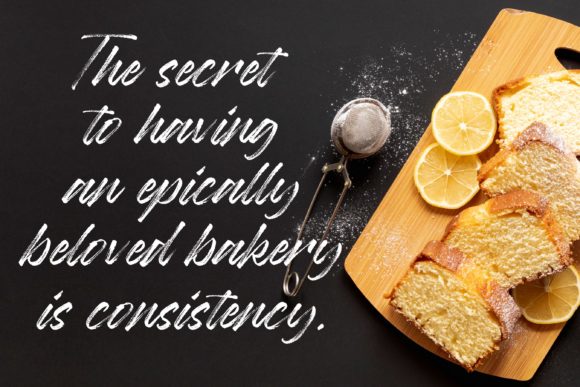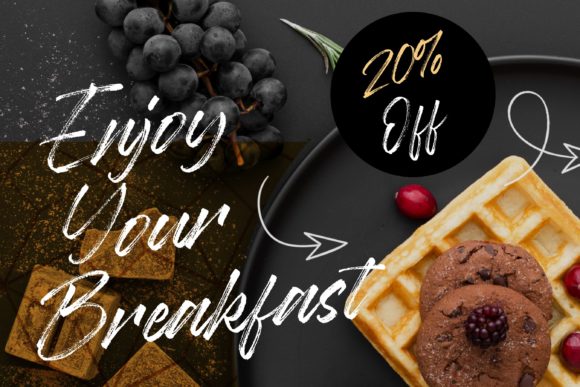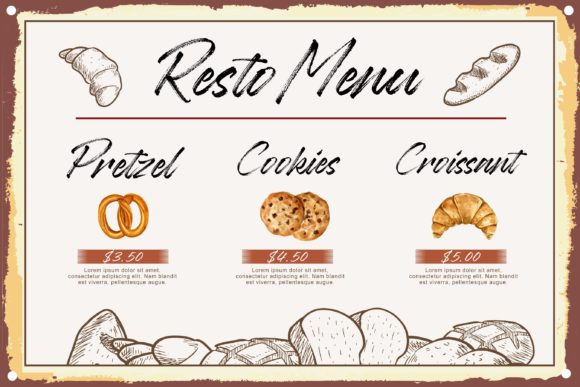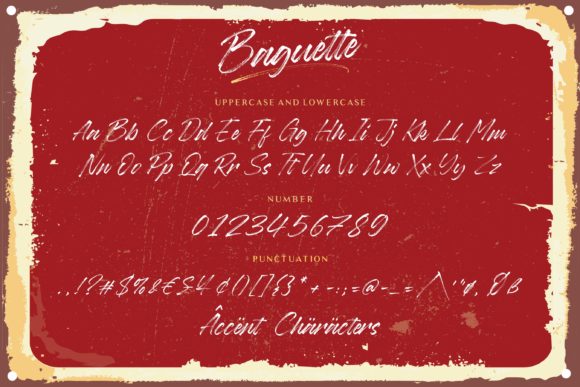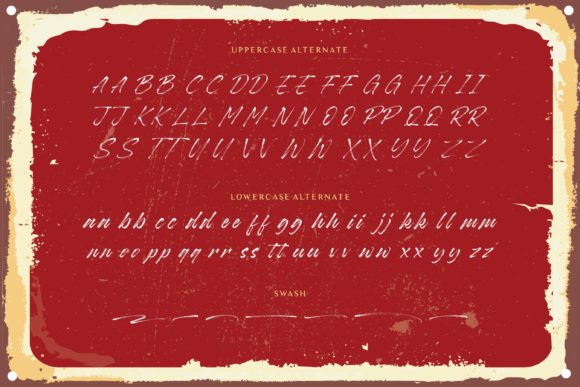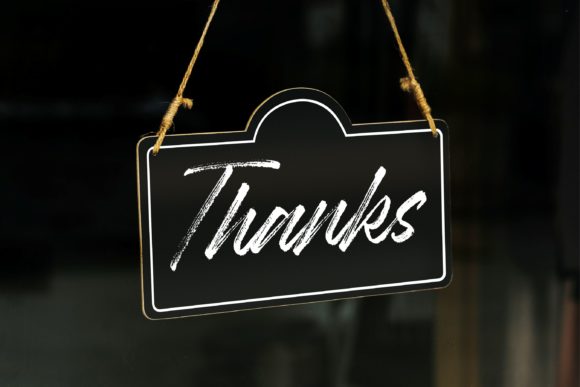
Introducing Baguette Font: The Perfect Addition to Your Design Arsenal
Are you a designer or crafter looking for a unique and versatile font to elevate your creative projects? Look no further than Baguette Font, a stunning natural hand-brushed font that’s perfect for a wide range of applications. In this article, we’ll dive into the world of Baguette Font and explore its features, uses, and benefits.
What is Baguette Font?
Baguette Font is a beautiful, hand-brushed font that’s inspired by the rustic charm of traditional French bread. Its natural, organic feel makes it perfect for designs that require a personal touch. The font’s unique texture and subtle imperfections give it a distinctive character that’s sure to set your designs apart.
Key Features of Baguette Font
- Natural Hand-Brushed Texture: Baguette Font boasts a beautiful, hand-brushed texture that gives it a warm and organic feel.
- Highly Versatile: This font is perfect for a wide range of applications, from logos and greeting cards to invitations, stationery, and social media posts.
- Standout Headlines: Baguette Font is designed to make a statement, whether it’s used as a standalone headline or on busy backgrounds.
- Ease of Use: This font is easy to read and works well in both digital and print formats.
Uses for Baguette Font
Baguette Font is an incredibly versatile font that can be used in a variety of creative projects. Here are some ideas to get you started:
- Logos and Branding: Use Baguette Font to create a unique and memorable logo that reflects your brand’s personality.
- Greeting Cards and Invitations: Add a personal touch to your greeting cards and invitations with Baguette Font’s charming, hand-brushed texture.
- Stationery and Paper Crafts: Baguette Font is perfect for creating custom stationery, journals, and paper crafts that require a personal touch.
- Social Media Posts: Use Baguette Font to create eye-catching social media posts that stand out from the crowd.
Benefits of Using Baguette Font
So why choose Baguette Font for your design projects? Here are just a few benefits:
- Unique and Memorable: Baguette Font’s distinctive texture and character make it a great choice for designers who want to create unique and memorable designs.
- Time-Saving: With Baguette Font, you can create professional-looking designs in no time, thanks to its ease of use and versatility.
Tips for Using Baguette Font
To get the most out of Baguette Font, here are a few tips to keep in mind:
- Experiment with Colors: Baguette Font looks great in a variety of colors, so don’t be afraid to experiment and find the perfect hue for your design.
- Mix and Match: Combine Baguette Font with other fonts and textures to create unique and interesting designs.
- Pay Attention to Size: Make sure to adjust the font size to suit your design needs, as Baguette Font can be used for both large headlines and smaller body text.
In conclusion, Baguette Font is a versatile and beautiful natural hand-brushed font that’s perfect for designers and crafters looking to add a personal touch to their creative projects. With its unique texture, ease of use, and affordability, Baguette Font is an excellent addition to any design arsenal. So why wait? Download Baguette Font today and start creating stunning designs that stand out from the crowd!